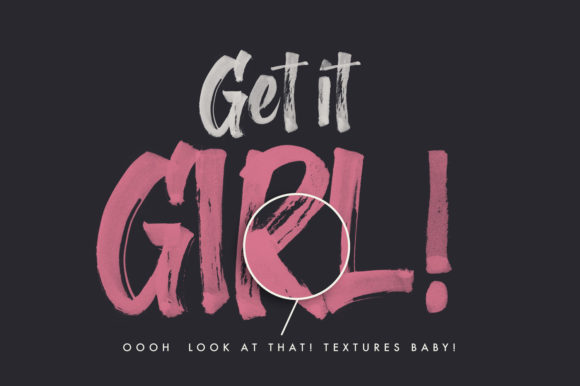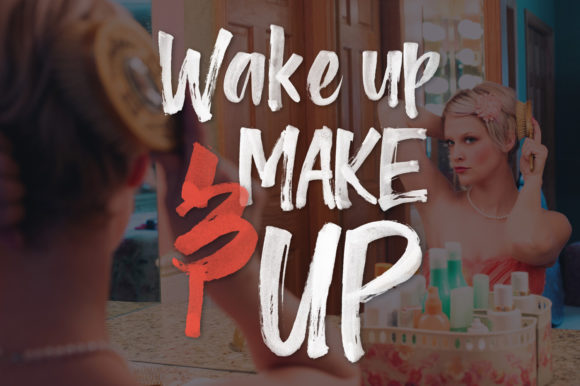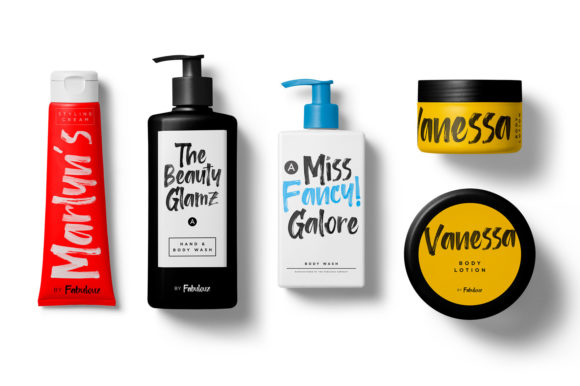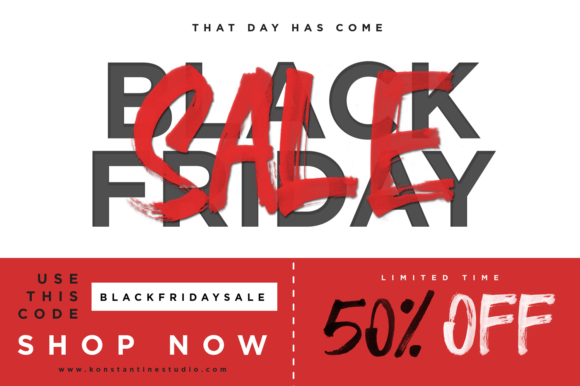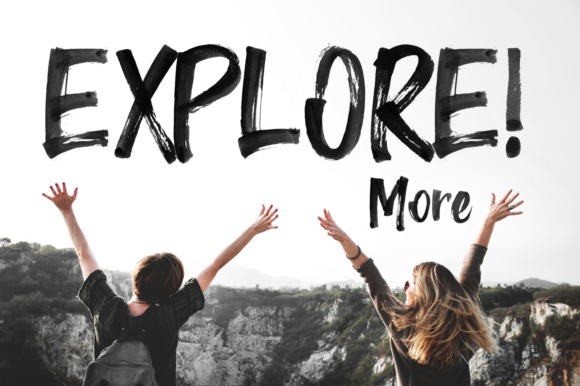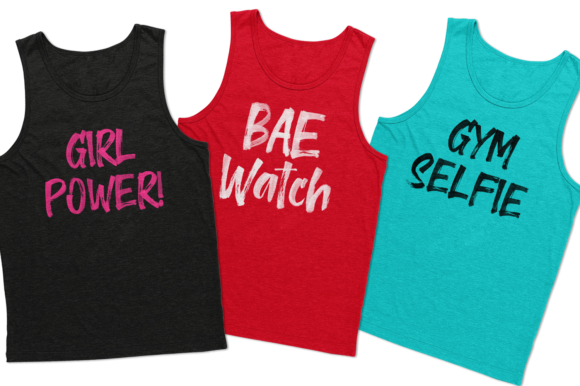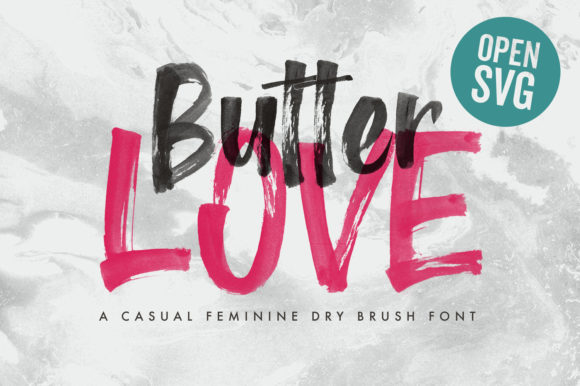
Introducing Butter Love Font: The Ultimate Display Font for Creative Designs
Are you a designer or crafter looking for a font that can add a touch of fun and personality to your designs? Look no further than Butter Love Font! This cool, brushed, and fun display font is perfect for creating eye-catching designs that stand out from the crowd. In this article, we’ll explore the features and benefits of Butter Love Font, and how it can elevate your designs to the next level.
What is Butter Love Font?
Butter Love Font is a unique and stylish display font that is designed to add a touch of whimsy and playfulness to your designs. With its brushed texture and fun, handwritten style, this font is perfect for creating designs that are both modern and eye-catching. Whether you’re looking to create a logo, advertisement, or social media graphic, Butter Love Font is the perfect choice.
Key Features of Butter Love Font
- Cool and Brushed Texture: Butter Love Font features a cool and brushed texture that gives it a unique and stylish look.
- Fun and Handwritten Style: This font has a fun and handwritten style that is perfect for creating designs that are both modern and playful.
- Suitable for a Variety of Designs: Butter Love Font is suitable for a wide range of designs, including t-shirts, sportswear, logos, advertisements, clothing, and more.
- Easily Customizable: This font is easily customizable, allowing you to adjust the size, color, and style to fit your design needs.
Benefits of Using Butter Love Font
So why should you choose Butter Love Font for your designs? Here are just a few benefits of using this amazing font:
- Adds a Touch of Personality: Butter Love Font adds a touch of personality and whimsy to your designs, making them stand out from the crowd.
- Perfect for Branding and Marketing: This font is perfect for creating logos, advertisements, and other marketing materials that need to make a statement.
- Versatile and Flexible: Butter Love Font is versatile and flexible, making it suitable for a wide range of designs and applications.
- Easily Readable: Despite its fun and playful style, Butter Love Font is easily readable, making it perfect for designs that need to communicate a message.
How to Use Butter Love Font in Your Designs
Using Butter Love Font in your designs is easy! Here are a few tips to get you started:
- Pair it with Other Fonts: Butter Love Font pairs well with other fonts, so don’t be afraid to experiment with different combinations.
- Adjust the Size and Color: Adjust the size and color of the font to fit your design needs and make it stand out.
- Use it for Headings and Titles: Butter Love Font is perfect for headings and titles, where you want to make a statement and grab attention.
- Experiment with Different Effects: Experiment with different effects, such as adding a drop shadow or texture, to give your design an extra boost.
In conclusion, Butter Love Font is a cool, brushed, and fun display font that is perfect for designers and crafters looking to add a touch of personality to their designs. With its unique texture and handwritten style, this font is suitable for a wide range of designs, from logos and advertisements to t-shirts and sportswear. Whether you’re looking to create a statement piece or simply want to add some whimsy to your design, Butter Love Font is the perfect choice.